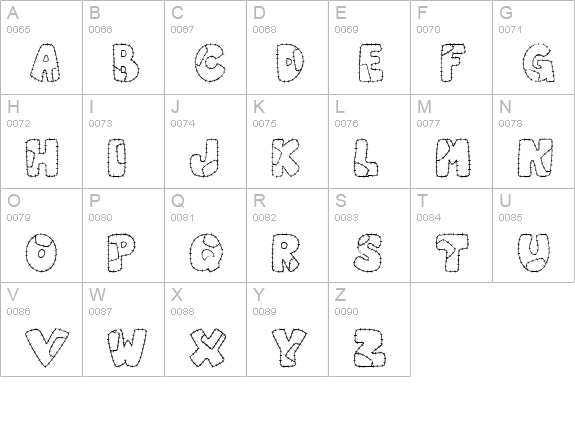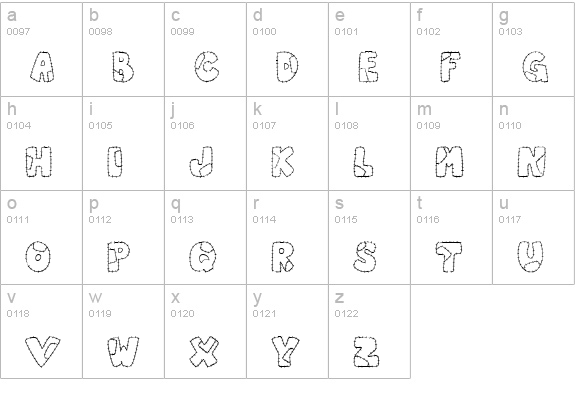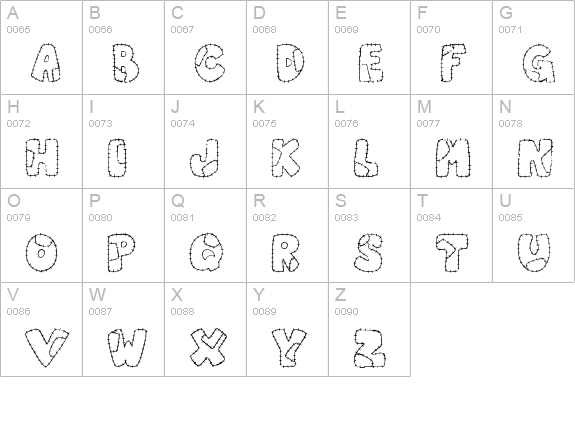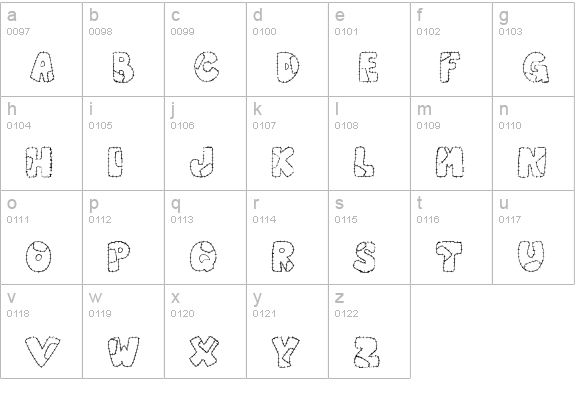
Patchwork Letter Font Details
Introducing Patchwork Letter, a captivating and versatile font that will add a touch of creativity and charm to any project. With its unique patchwork-inspired design, this font is perfect for adding a handmade feel to your designs. The letters are meticulously crafted, combining various patterns and textures to create a truly one-of-a-kind look. Patchwork Letter is not only visually stunning but also highly legible, making it suitable for a wide range of design projects, including logos, branding, packaging, invitations, and more. Its bold and expressive character will instantly grab attention and leave a lasting impression. One of the best features of Patchwork Letter is that it is absolutely free! Yes, you read that right. This incredible font is freely available to download at FontsMarket.com, a trusted source for high-quality fonts. Whether you're a professional designer or a hobbyist, you can now enjoy the beauty and versatility of Patchwork Letter without any cost. Downloading Patchwork Letter is quick and easy. Simply visit FontsMarket.com, search for Patchwork Letter, and download the font file. Once installed, you can start using it in your projects right away. The font file is compatible with both Mac and Windows operating systems, ensuring a seamless experience for all users. With Patchwork Letter, you can unleash your creativity and bring your design ideas to life. Make a statement, stand out from the crowd, and leave a lasting impression with this exceptional font. Download Patchwork Letter today and elevate your designs to new heights.